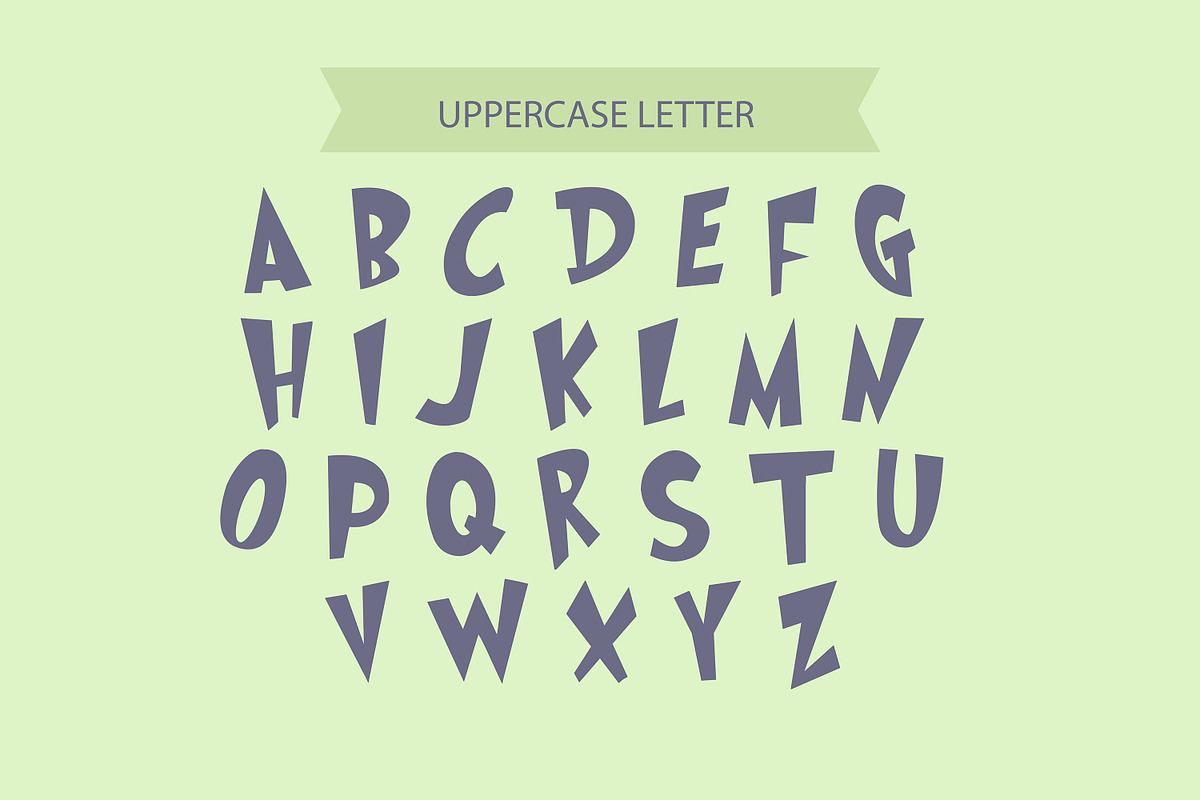
Add a sprinkle of magic and mischief to your designs with the Baby Jinx Font Free Download — a playful, whimsical typeface designed to bring joy, charm, and imagination to every project. With its bouncy letters and cartoonish style, Baby Jinx is perfect for kids’ birthday invites, toy packaging, baby apparel branding, storybooks, and anything that calls for cuteness with character.
This font captures the spirit of childhood — fun, unpredictable, and full of energy. Whether you're designing for a children’s brand or simply want to lighten the mood in your visual work, Baby Jinx delivers smiles in every letter.